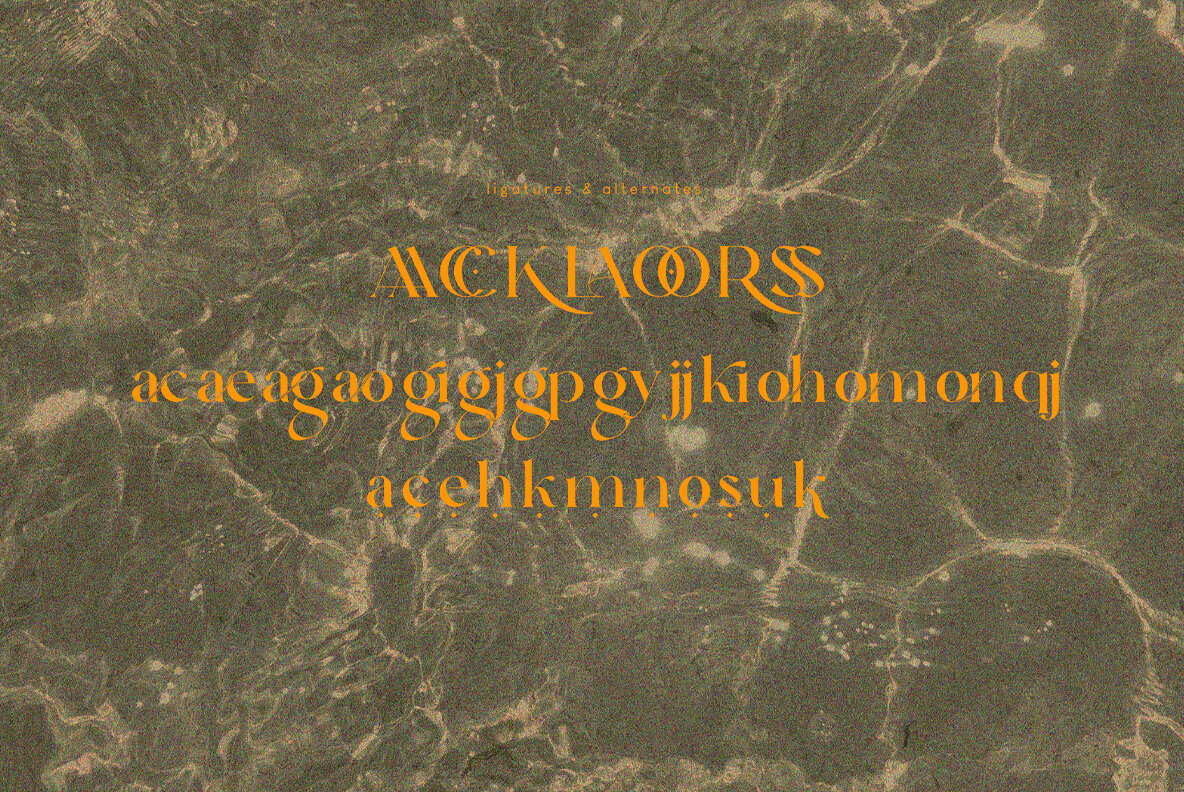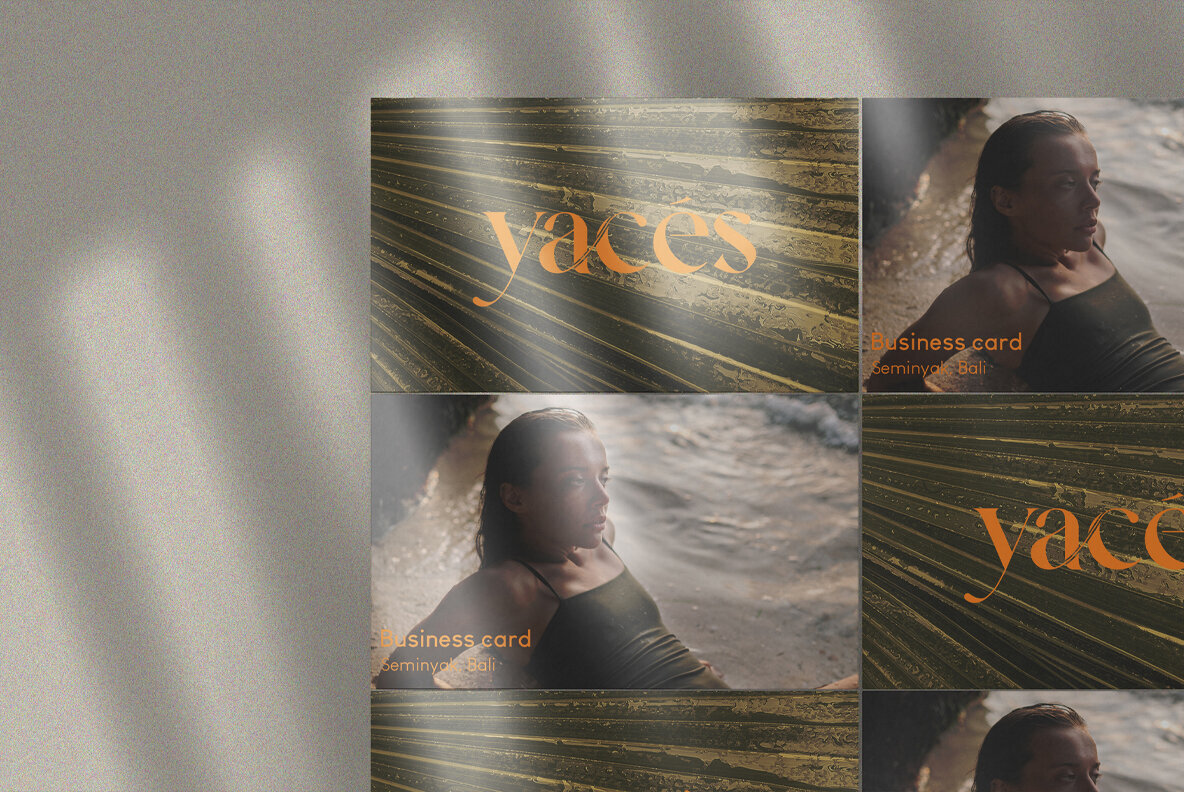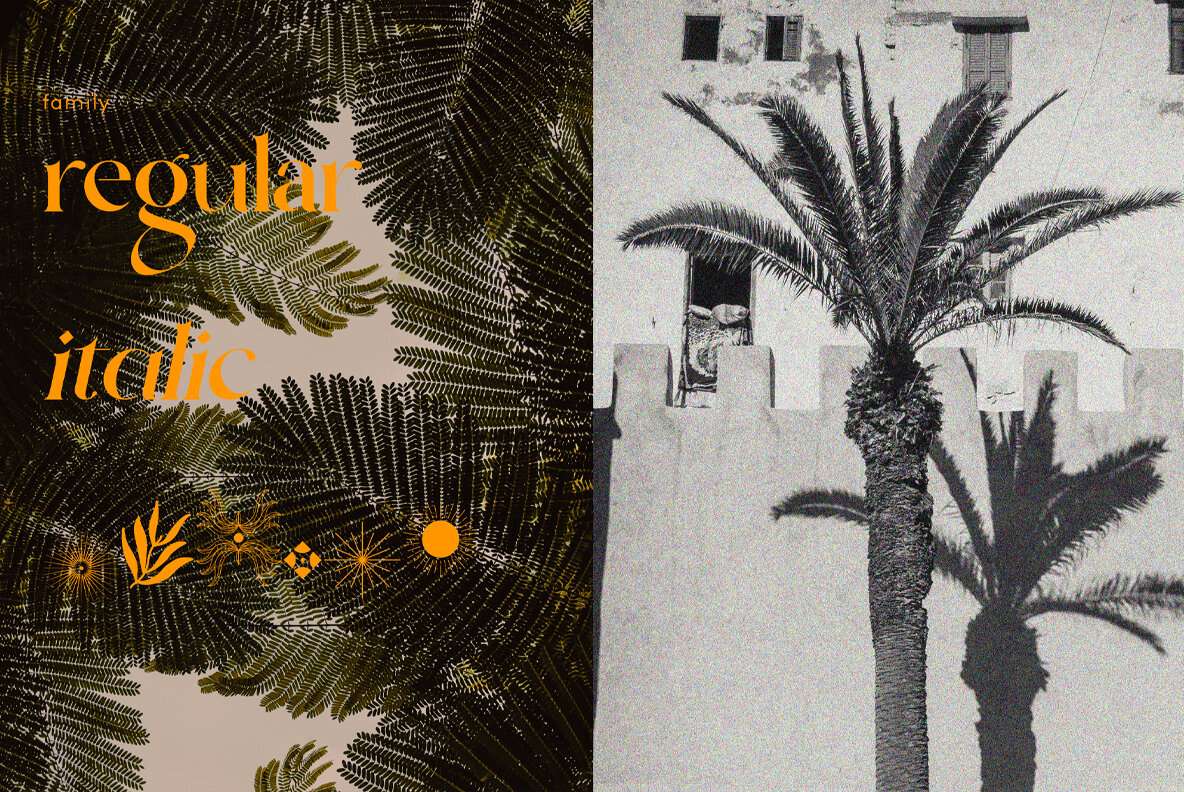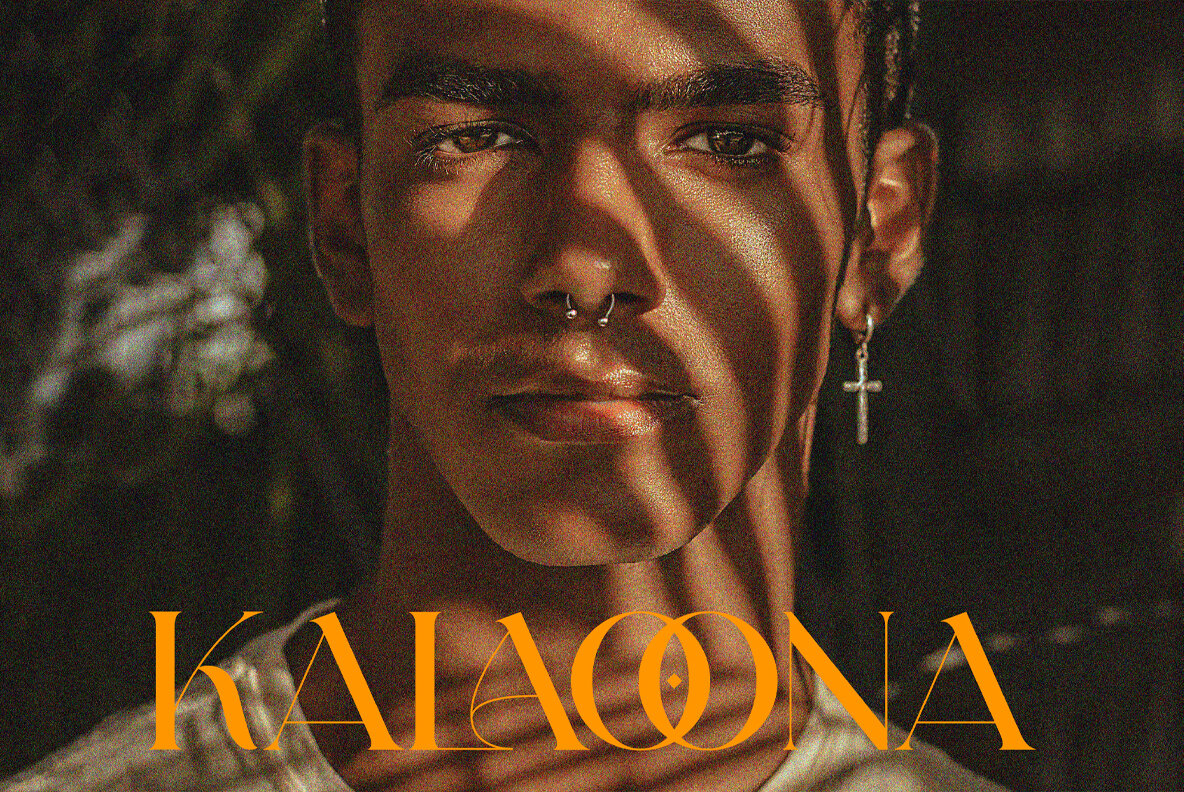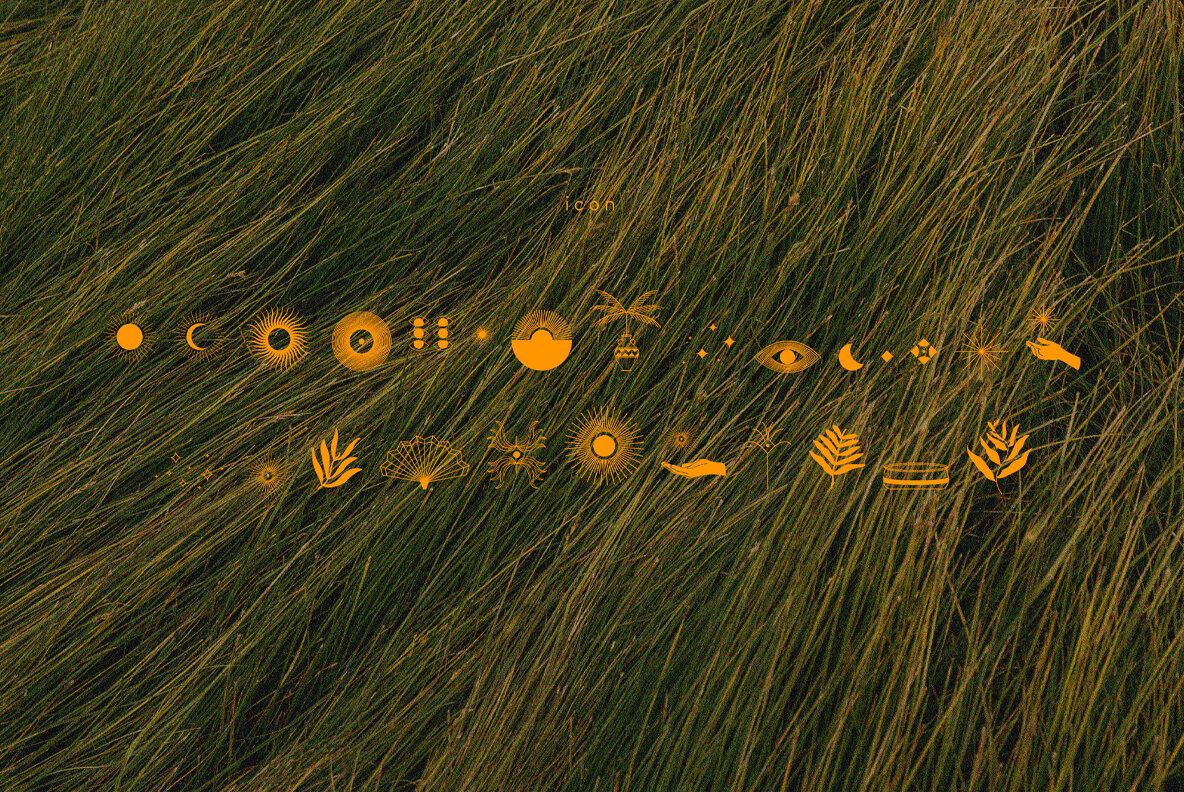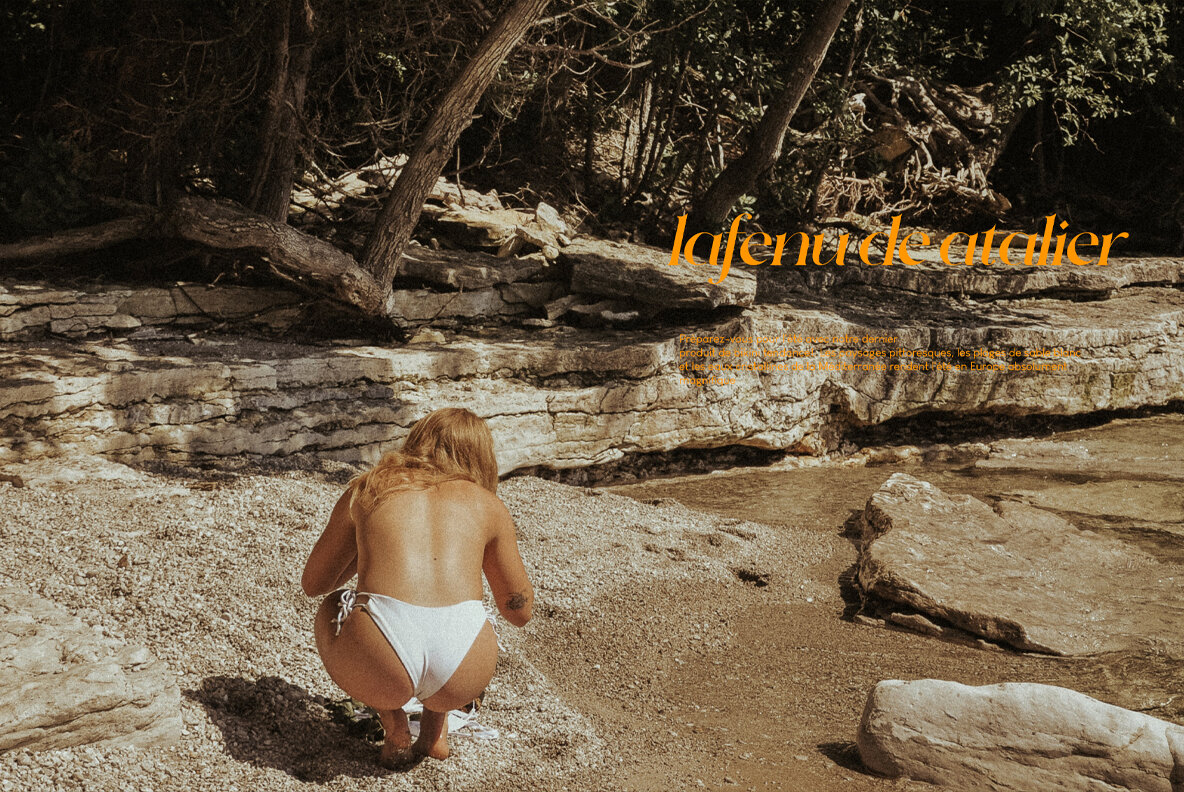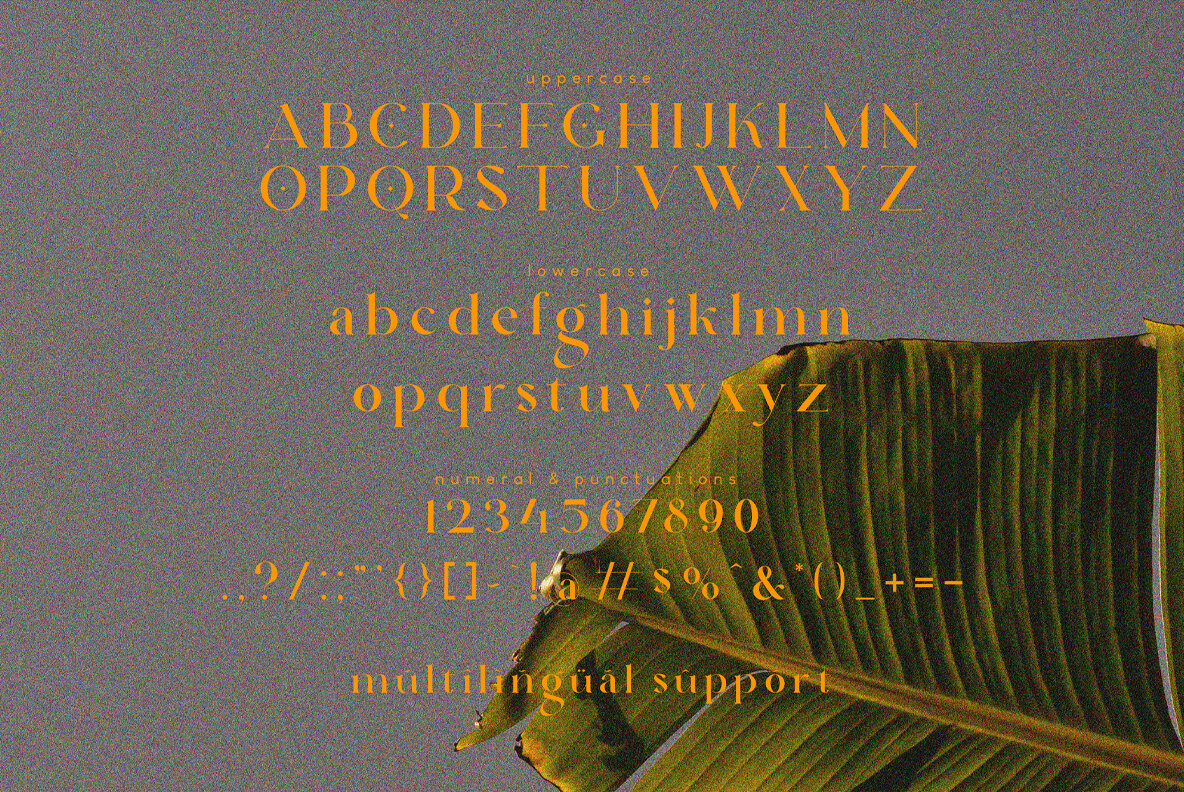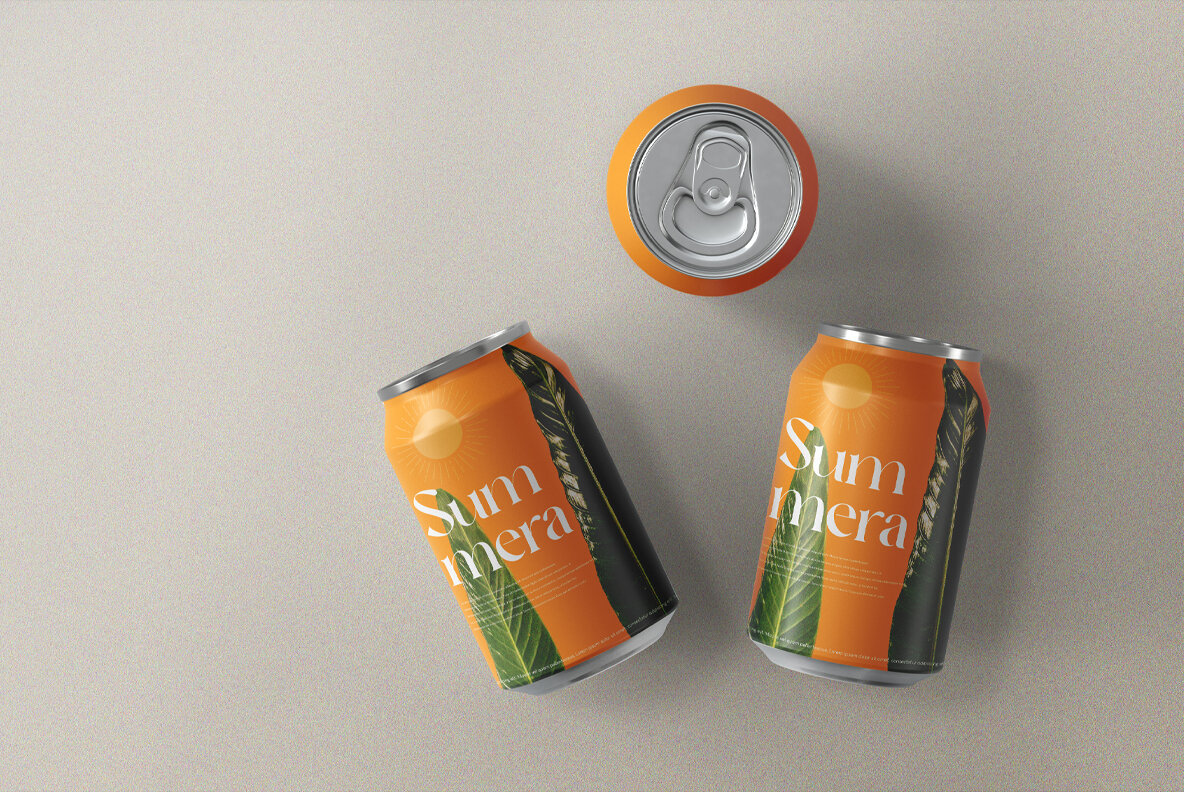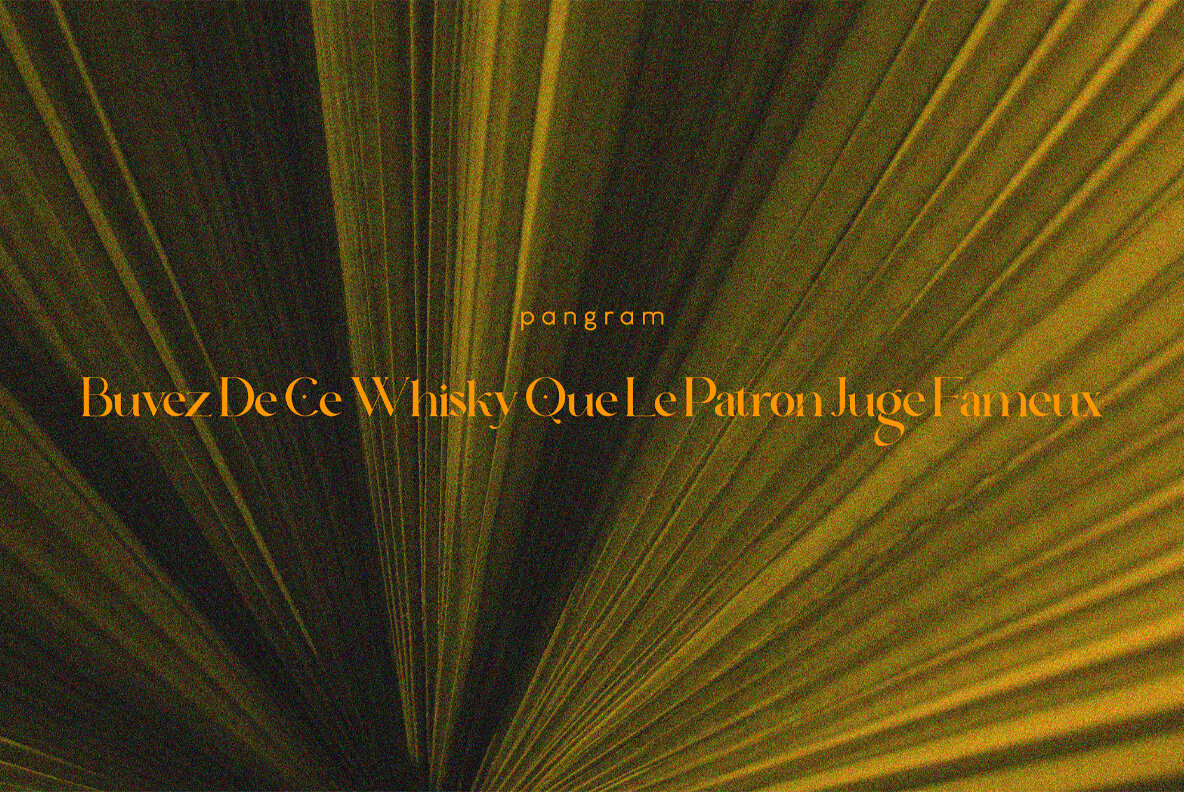
Qarkine Font
Qarkine Regular
Qarkine Italic
Qarkine Icon
Experience the unparalleled beauty and refinement of Qarkine the font that sets the standard for elegance and class in typography. With its sleek and stylish design, Qarkine strikes the perfect balance between classic and contemporary, making it a versatile choice for a wide range of design projects. The font's effortlessly elegant and polished look is perfect for upscale branding and marketing materials, adding a touch of glamour and luxury to any project. Qarkine's refined lettering has a timeless aesthetic that will never go out of style, making it a wise investment for designers who want to stay ahead of the curve. Whether you're looking to create a high-end fashion brand, a luxury lifestyle magazine, or simply want to add a touch of exclusivity to your designs, Qarkine is the perfect font for the job. Complete with: